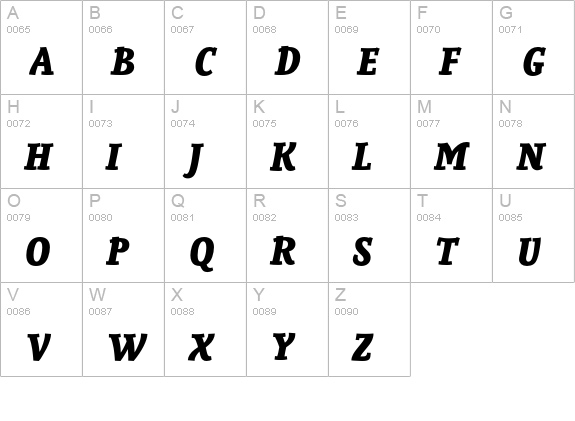
Poseidon-BoldItalic Font Details
Introducing Poseidon-BoldItalic font - a striking and dynamic typeface that exudes strength and sophistication. The bold italic style of Poseidon commands attention and adds a touch of elegance to any design project. With its sleek curves and sharp angles, this font is perfect for creating eye-catching headers, titles, and logos. What sets Poseidon-BoldItalic apart is that it is available for free! Yes, you read that right - this premium font can be downloaded at no cost from FontsMarket.com. Whether you're a designer looking to enhance your portfolio or a business owner in need of a standout branding solution, Poseidon-BoldItalic is the perfect choice. Don't miss out on this opportunity to elevate your design projects with the bold and italic beauty of Poseidon. Download it today and let your creativity shine!